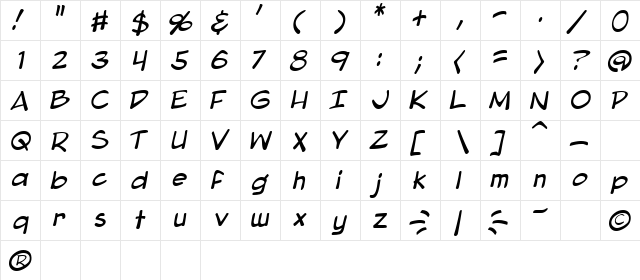
Blambot Pro Lite Italic
Design Context for Blambot Pro Lite Typeface
Blambot Pro Lite offers clean, dependable letterforms without strong stylistic allegiance, making it a practical choice for designers who need flexibility. Its italic angle brings a sense of urgency and motion to the letterforms.
Pro Tip: Use Blambot Pro Lite for emphasis, pull quotes, and subheadings where its slanted energy can add rhythm to the layout.